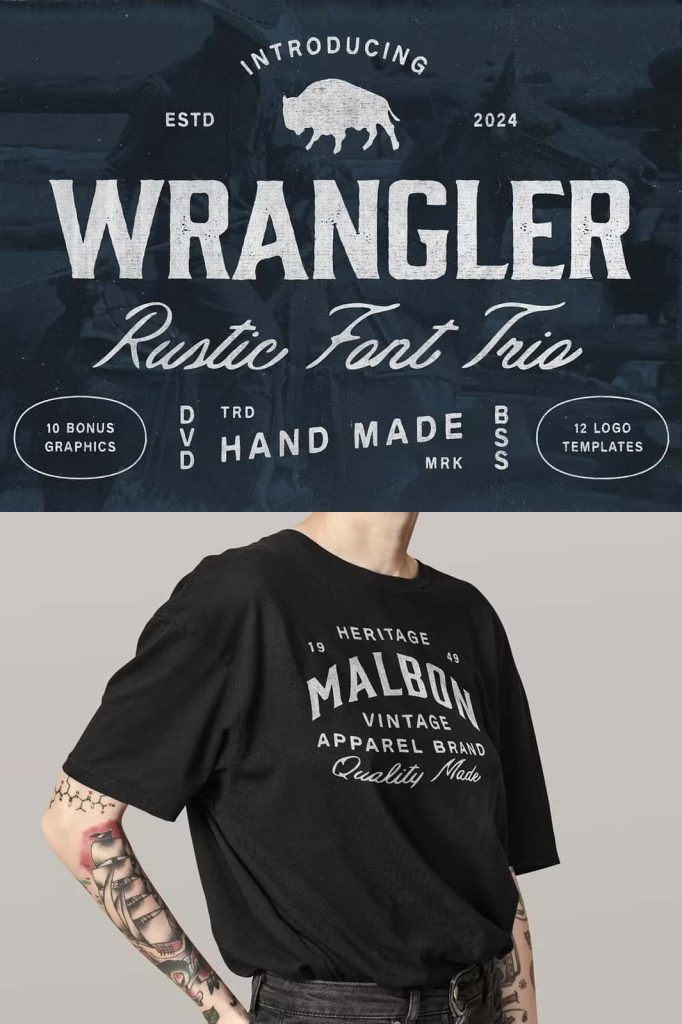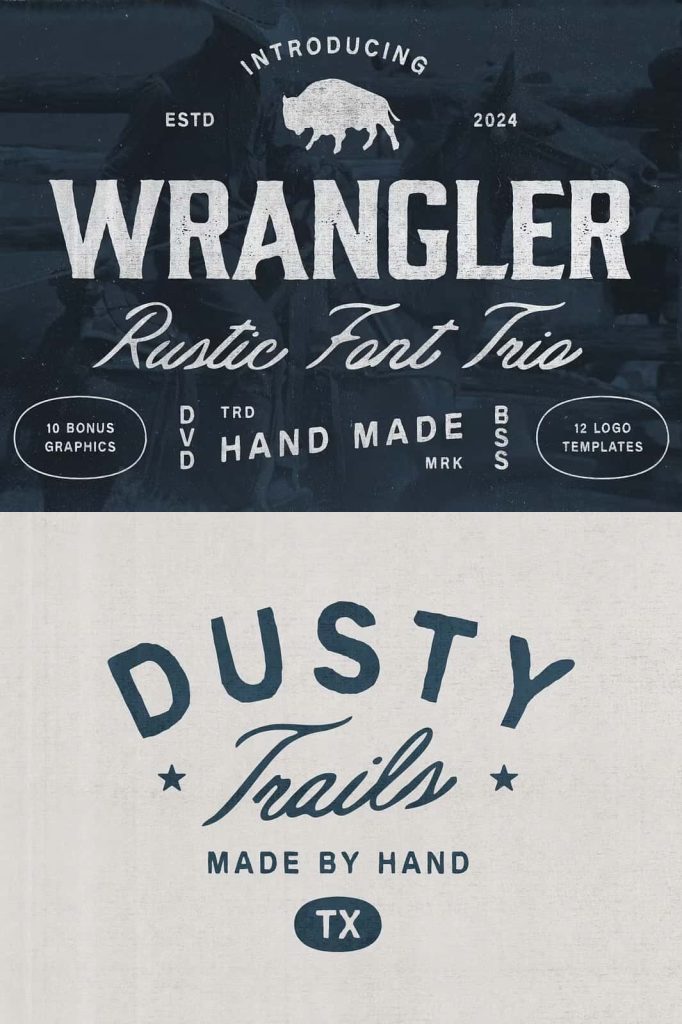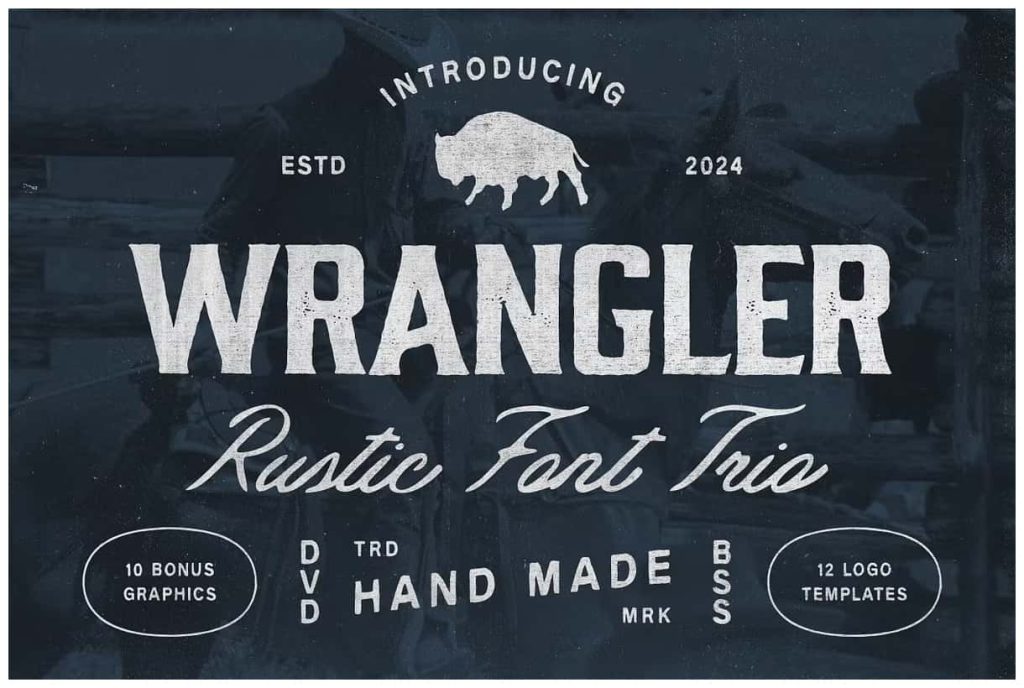
Wrangler Font Trio – A Bold Handcrafted Typeface Inspired by the Southern West
Introducing Wrangler Font Trio
Wrangler Font Trio is a dynamic and handcrafted typeface collection inspired by the bold, rugged spirit of the Southern West. Designed with creativity and versatility in mind, this font bundle brings together three distinctive styles — Display, Script, and Condensed — making it the perfect toolkit for designers who want to capture vintage charm with a modern edge. Each typeface is carefully crafted to bring authenticity, strength, and personality to your work, helping you create designs that truly stand out.
More than just a font, Wrangler comes with an exciting creative bonus — 10 hand-drawn illustrations and 12 customizable logo templates. Whether you’re working on branding, packaging, apparel, or promotional materials, this complete bundle gives you everything you need to tell your story with style and confidence.
Bold Design with Southern Flair
Wrangler Font Trio embodies the raw, adventurous essence of the American frontier. It draws inspiration from vintage Western typography and rustic sign painting traditions, combining authenticity with modern craftsmanship. Each stroke, curve, and serif in Wrangler is designed to capture the rough yet charming aesthetic of cowboy culture, sun-drenched deserts, and open roads.
Inspired by the Southern West
The design of Wrangler Font pays homage to the classic Americana style — where bold lettering met handcrafted artistry. The result is a font family that feels both nostalgic and contemporary. It’s perfect for designers seeking to evoke warmth, adventure, and authenticity in their work. Wrangler’s handcrafted details ensure every design feels one-of-a-kind, much like a hand-painted sign from the Old West.
Three Unique Styles for Total Creative Freedom
With three complementary font styles, Wrangler Font Trio gives you the flexibility to experiment and mix typography with ease. Each style brings its own personality, making this collection ideal for a wide range of design projects.
- Wrangler Display: Bold and commanding, ideal for headlines, posters, and signage that need to make an impact. Its thick strokes and vintage Western vibe create a strong visual statement.
- Wrangler Script: A handcrafted cursive style that adds fluidity and personality. Perfect for logos, product labels, or branding that requires a personal touch.
- Wrangler Condensed: Sleek, compact, and versatile. Great for smaller text, taglines, or complementary typography within your layouts.
When used together, these three styles create a cohesive and powerful visual system — perfect for building unified brand identities or complete design themes.
Creative Extras Included
Wrangler Font Trio goes beyond typography. This bundle includes 10 hand-drawn illustrations inspired by the rugged beauty of the Wild West, featuring desert motifs, cacti, sunbursts, and Western icons. These illustrations perfectly complement the font’s rustic personality and can be used to enhance packaging, posters, apparel, and branding visuals.
Additionally, the pack includes 12 professionally designed logo templates that make it easy to create stunning, ready-to-use branding concepts. Each logo template is fully editable, allowing you to adjust text, layout, and colors to fit your specific project.
Perfect for a Variety of Design Projects
Wrangler Font Trio is built for bold creatives who love designs with a handcrafted touch. Its versatile nature allows it to adapt effortlessly to multiple design purposes while maintaining a strong, cohesive aesthetic. Whether you’re aiming for rustic, retro, or contemporary styles, Wrangler delivers exceptional results every time.
- Branding and Logos: Build bold, adventurous visual identities with ease using the trio of fonts and included templates.
- Posters and Flyers: Capture attention with vintage-inspired typography that feels powerful and unique.
- Packaging Design: Add a handcrafted charm to product labels, bottles, and artisan goods.
- Apparel and Merchandising: Perfect for T-shirts, badges, and Western-inspired fashion branding.
- Social Media and Marketing: Create visually striking graphics that tell your story with energy and attitude.
Authentic Handcrafted Quality
Every letter in Wrangler Font Trio has been carefully drawn to preserve the tactile charm of handcrafted design. It avoids the sterile perfection of digital fonts, opting instead for natural imperfections that create a warm, human feel. This makes Wrangler ideal for projects that demand authenticity, individuality, and creative spirit.
Design Benefits:
- Three Distinct Font Styles: Combine or use individually for ultimate flexibility.
- Handcrafted Authenticity: Every stroke designed with care to reflect the rugged beauty of the West.
Ride into your next creative adventure with Wrangler Font Trio — the bold, handcrafted typeface collection that captures the wild heart of the West.